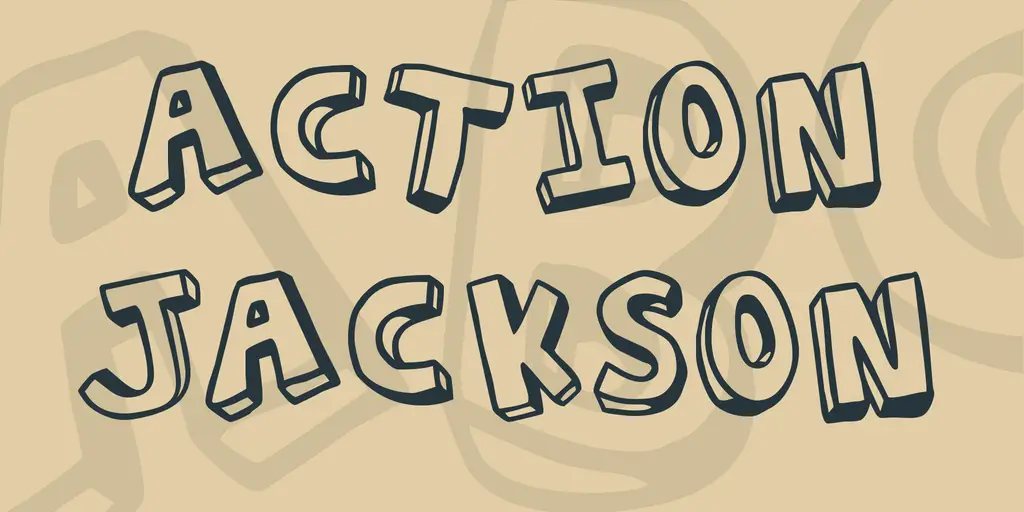
Introducing Action Jackson Font, A well know typeface all over the globe. This various typeface that contains Another shabby includes 2 styles and each style has there own unique appearance. So, today it brings a turn of the century elegance to directly to your keyboard. Therefore, you can practice this unique font family for your amazing designs so far.
Because of these magnificent features and best appealing looks, this font becomes the priority of any designer to utilize it at least one time in their profession. It also looks like popeye and psychedelic fonts.
Design Of Action Jackson Font
Utilizing this free typeface to make you realize one thing, That is the commitment of the designer towards making it.
Creating a logo, titles for a movie, books layouts, brochures designs, greeting cards, birthday cards, labelings, invitation cards, printing objects, as well as many more.
Action Jackson Font is similar to big john and calendron has available in Roman and Bold style. Both of these styles have glyphs, experimental ligatures.
That font featuring precise circles are optically acclimating to make a reasonable, characteristic typeface that looks like aachen font but with great neatness.